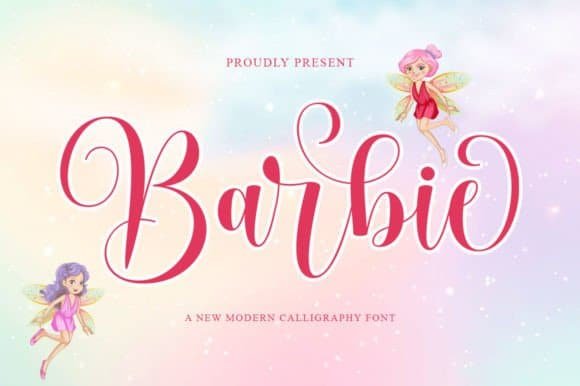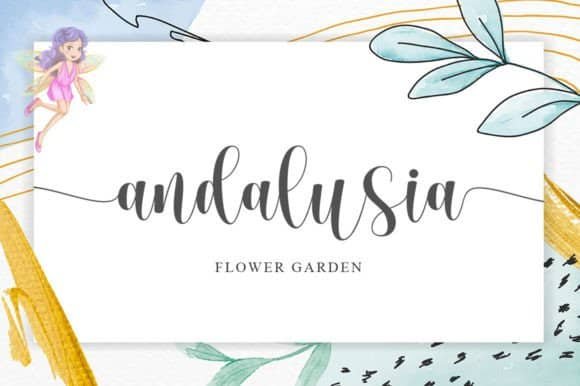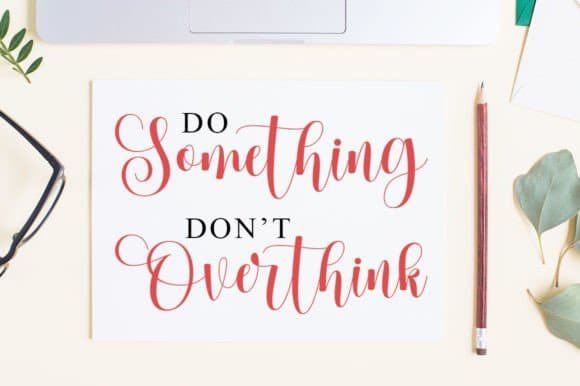
Calligraphy Fonts / FontsThis is Barbie Font 21/04/2025 - by Awais Farooq Barbie is a sweet, bouncy, and swirly calligraphy script font. This gentle font will look gorgeous on a variety of design ideas. It will add a joyful and romantic touch to each of your projects! Related Posts:The Sweet Valentine FontThe Trending Love Bubble FontEcatherina - legendary script DownloadTop Joyful Bubble FontCarina Astrea FontBodega Script Elegant Wedding Font Free DownloadRosaline Marige FontTop Calligraphy Font DownloadThe Wonderful Christmas FontThe New Icon Font Duo DownloadChewy Bubble Font DownloadThe Best Bubble FontFree Angelicha Font Download Frageell FontTop Paper Bag Mockup Set Download